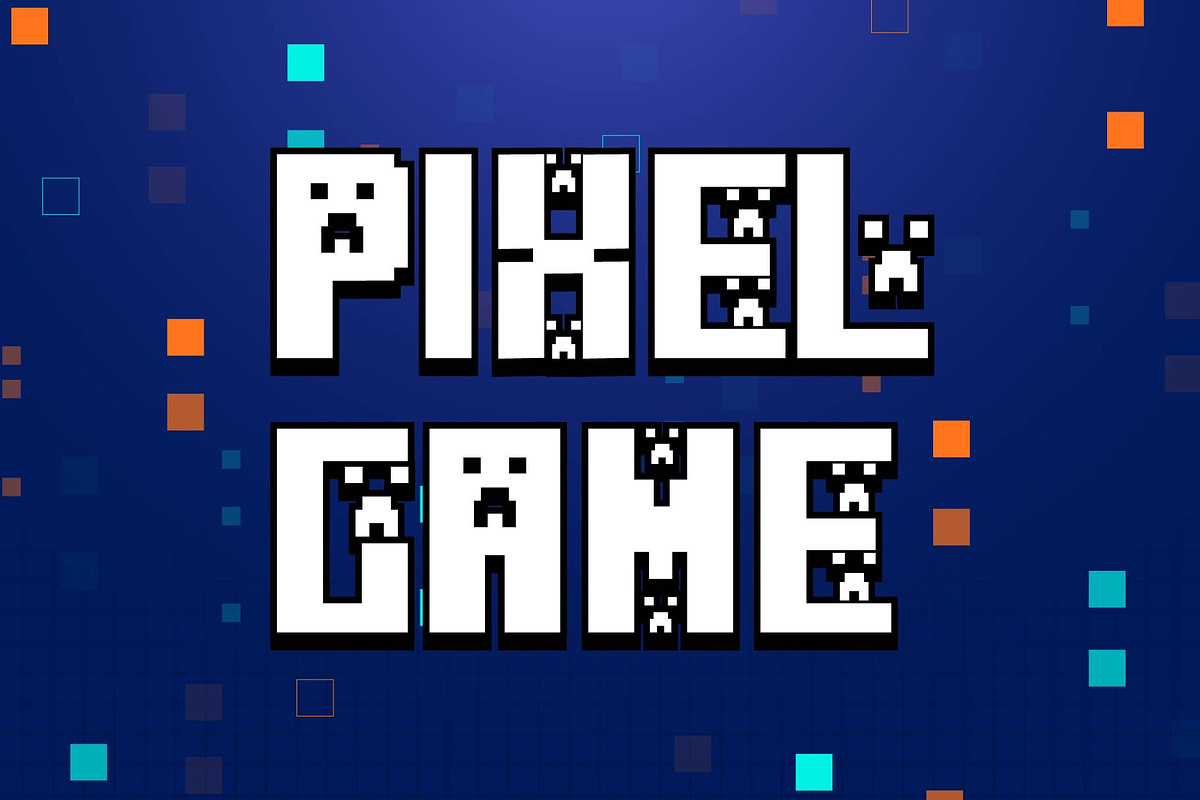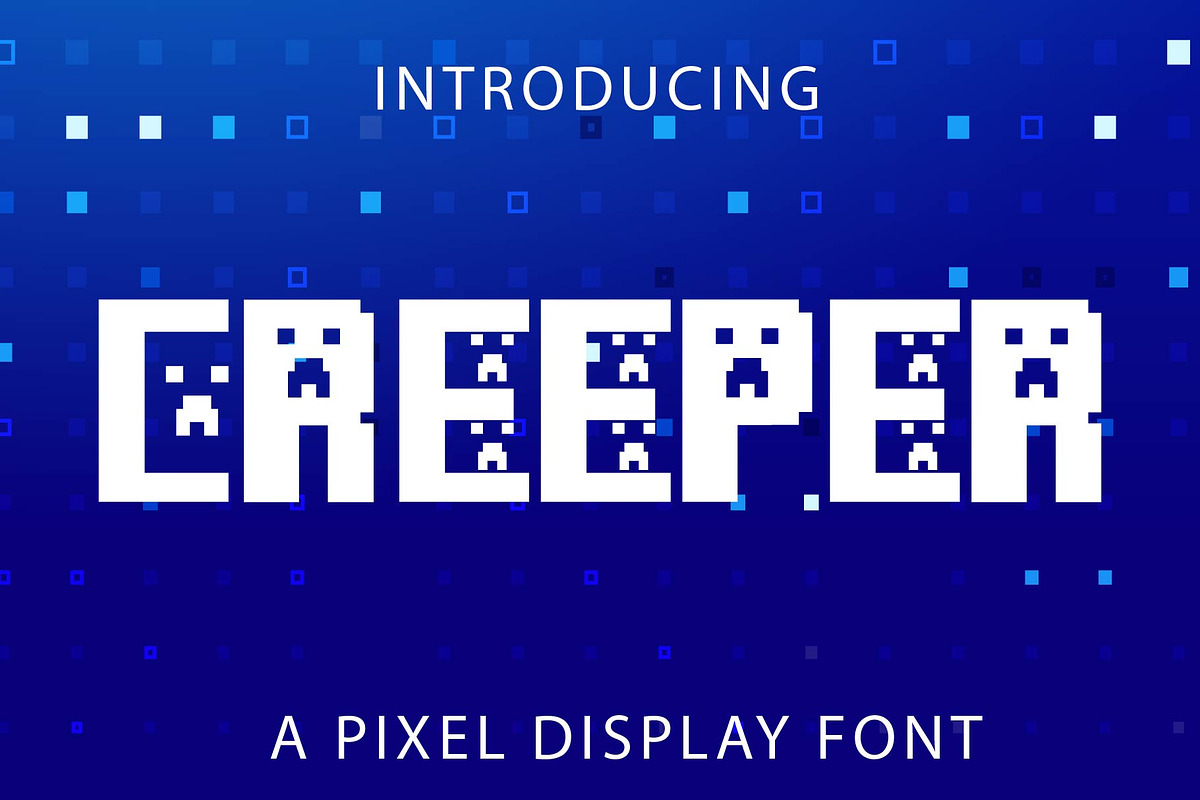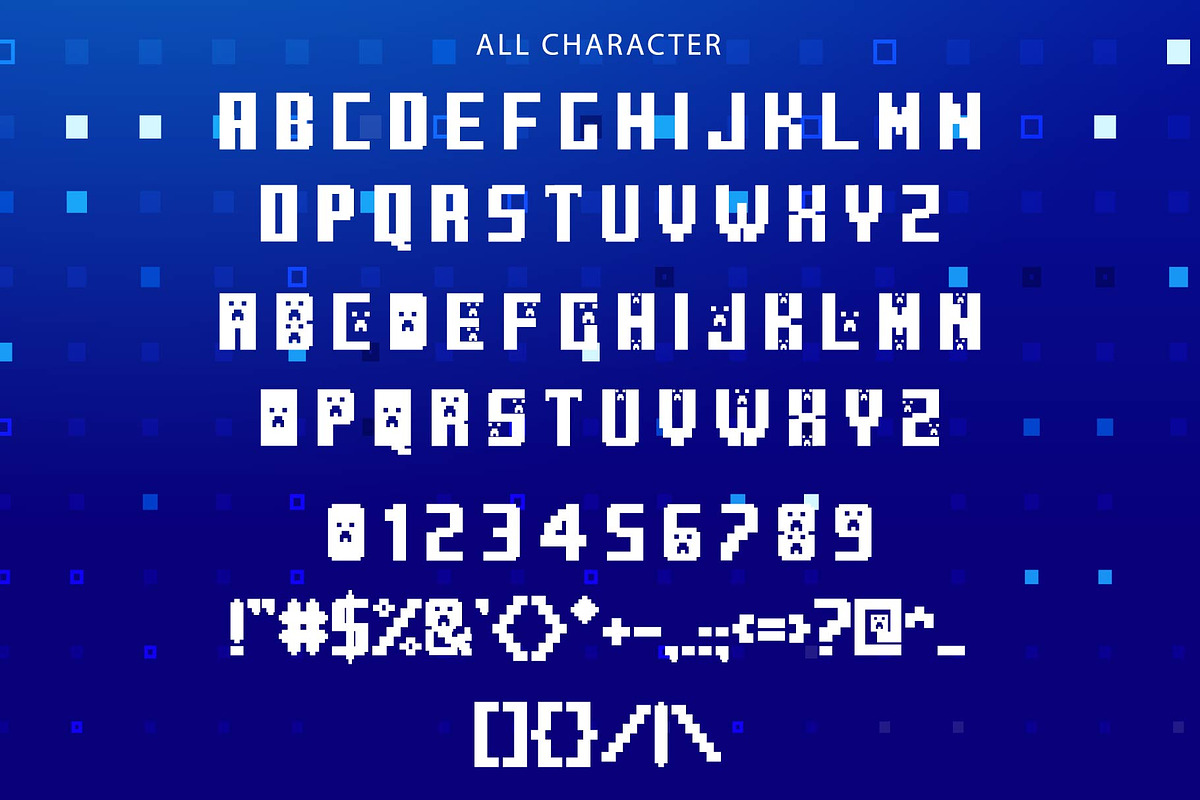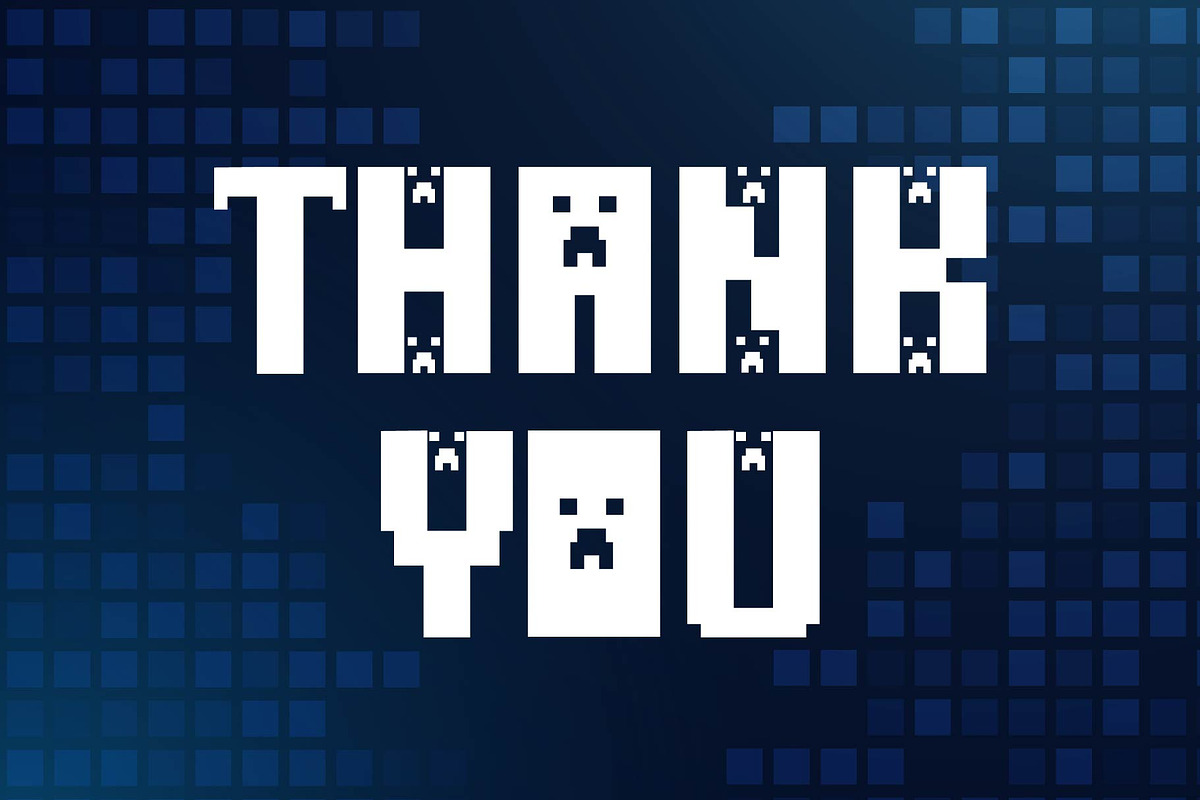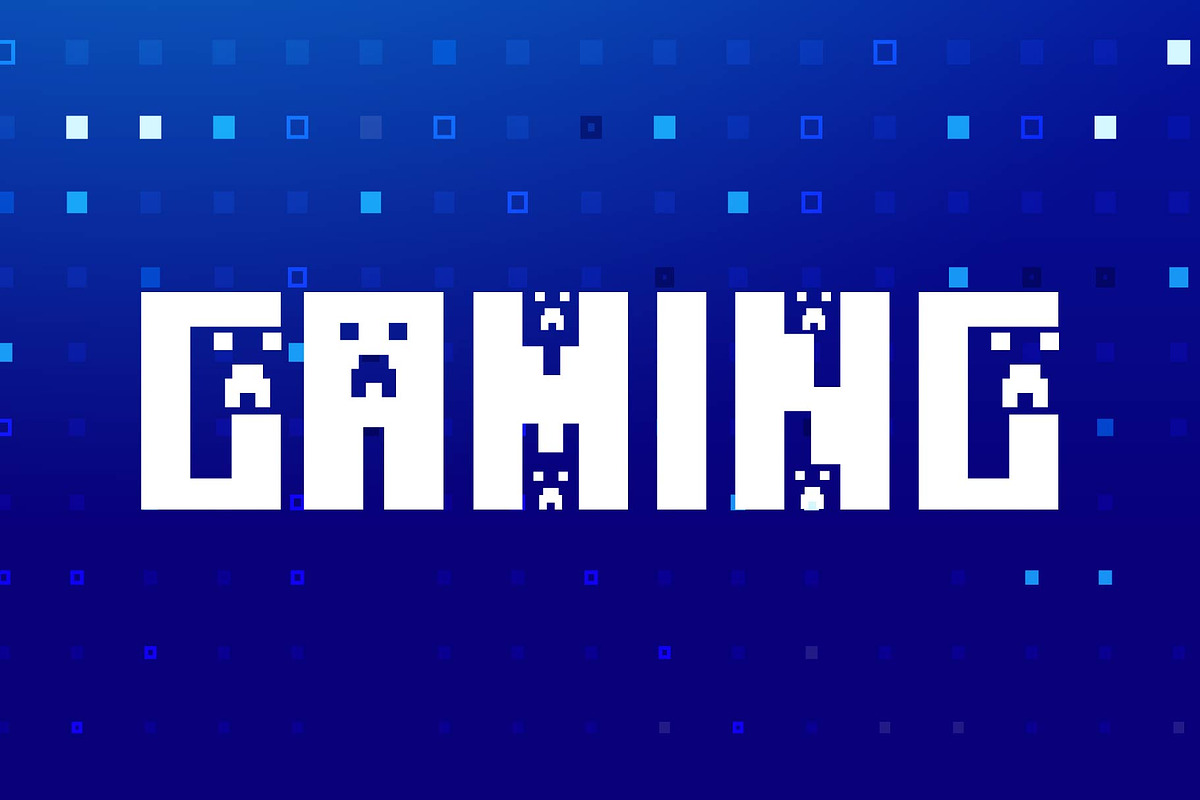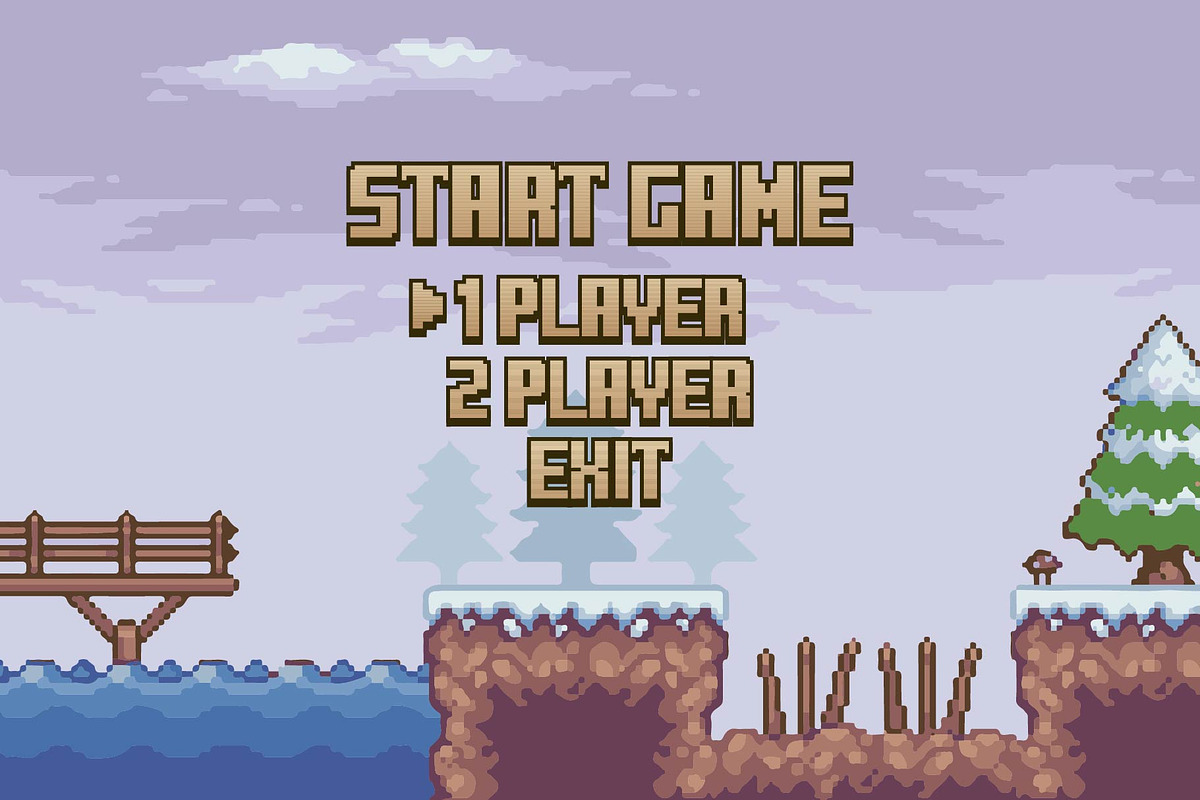
Creeper - Display Font
Creeper is a fun and playful display font that transports your designs into a vibrant world of creativity and joy. With bold, dynamic letterforms and an adventurous spirit, it captures the essence of playfulness. Ideal for projects seeking a whimsical and lively aesthetic, Minecraft infuses a delightful and imaginative flair into your creative expressions.